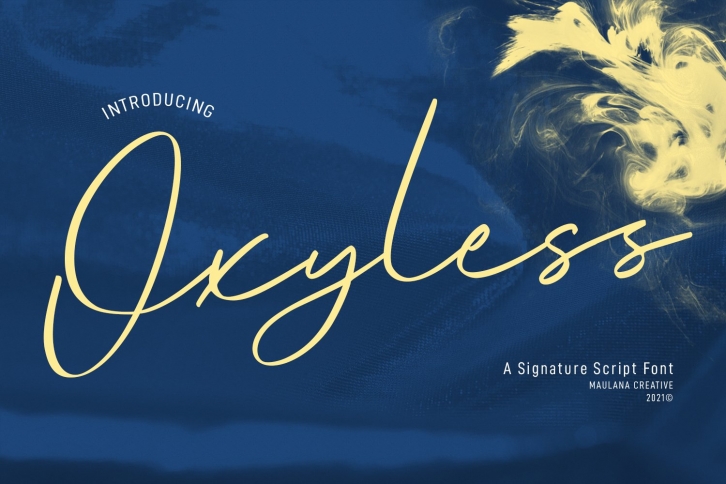
Oxyless Script is a trendy and unique font with an authentic style. It was designed by Maulana Creative and it's a great choice for creative people who need such a font. It was released on September 9, 2021 and the file size is 1.96 MB. Oxyless Script will add an organic vibe to any design idea!